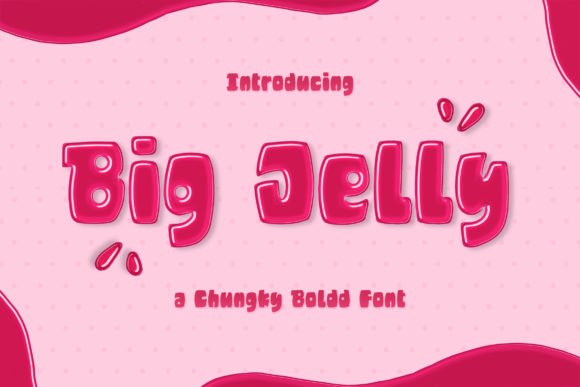
Introducing Big Jelly Font: The Ultimate Display Font for Creative Projects
Are you looking for a font that can add a touch of joy and playfulness to your designs? Look no further than Big Jelly Font! This chunky lettered and cool display font is perfect for a wide range of creative projects, from cartoon-related designs and children’s games to quotes, titles, brand names, book covers, posters, and more.
What Makes Big Jelly Font So Special?
Big Jelly Font is a unique and eye-catching font that is sure to grab attention. Its chunky letters and bold design make it perfect for creating titles, headings, and other display text that needs to stand out. But what really sets Big Jelly apart is its playful and fun vibe. This font is designed to bring a smile to people’s faces and add a touch of whimsy to any design.
Uses for Big Jelly Font
Big Jelly Font is a versatile font that can be used for a wide range of creative projects. Here are just a few ideas to get you started:
• Cartoon-related designs: Big Jelly Font is perfect for creating fun and playful cartoon characters, logos, and titles.
• Children’s games: This font is great for creating game titles, buttons, and other interactive elements that kids will love.
• Quotes and titles: Big Jelly Font is a great choice for creating eye-catching quotes and titles that will grab attention.
• Brand names: This font can be used to create unique and memorable brand names that will help your business stand out.
• Book covers: Big Jelly Font is perfect for creating eye-catching book covers that will appeal to kids and adults alike.
• Posters: This font is great for creating fun and playful posters that will grab attention and add a touch of joy to any room.
Why Designers and Crafters Love Big Jelly Font
Designers and crafters love Big Jelly Font for many reasons. Here are just a few:
• Easy to read: Despite its chunky design, Big Jelly Font is easy to read, even at small sizes.
• Highly versatile: This font can be used for a wide range of creative projects, from digital designs to print materials.
• Unique and eye-catching: Big Jelly Font is a one-of-a-kind font that will add a touch of personality to any design.
• Fun and playful: This font is designed to bring a smile to people’s faces and add a touch of joy to any design.
How to Use Big Jelly Font in Your Designs
Using Big Jelly Font in your designs is easy! Here are just a few tips to get you started:
• Experiment with different colors: Big Jelly Font looks great in a wide range of colors, from bright and bold to pastel and soft.
• Play with different sizes: This font can be used at a wide range of sizes, from small and subtle to large and bold.
• Add some texture: Big Jelly Font looks great with texture and patterns added to it.
• Mix and match with other fonts: This font pairs well with a wide range of other fonts, so don’t be afraid to experiment and find the perfect combination for your design.
Big Jelly Font is a unique and eye-catching display font that is perfect for adding a touch of joy and playfulness to any design. With its chunky letters and bold design, this font is sure to grab attention and bring a smile to people’s faces. Whether you’re a designer, crafter, or just someone who loves to create, Big Jelly Font is a great choice for any creative project.